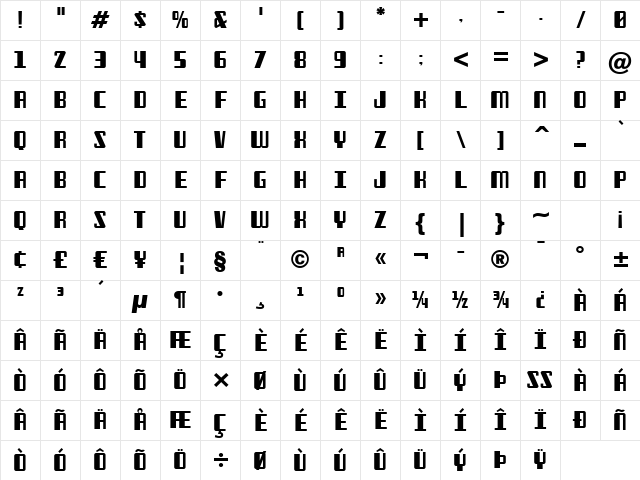
Freezer BTN Regular
Freezer BTN Family
Complete Freezer BTN Regular glyph index. Displaying only characters natively supported by Freezer BTN Regular font.
Design Context for Freezer BTN
Freezer BTN is a composed and adaptable typeface that performs quietly and consistently across a wide range of design contexts.